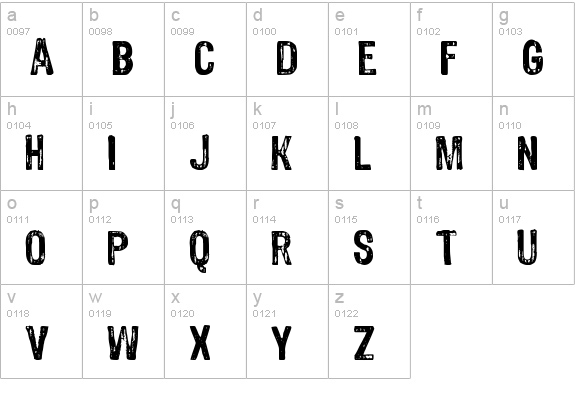
The 4990810 font is a modern and stylish typeface that is perfect for various design projects. With its sleek lines and elegant curves, this font exudes sophistication and creativity. Whether you are working on a logo, branding, or any other graphic design project, the 4990810 font is sure to make a statement. One of the best things about the 4990810 font is that it is freely available to download at FontsMarket.com. This means that you can easily access this beautiful font and use it in your projects without any cost. So, if you are looking for a versatile and eye-catching font that will elevate your designs, look no further than the 4990810 font. Download it today and let your creativity shine!